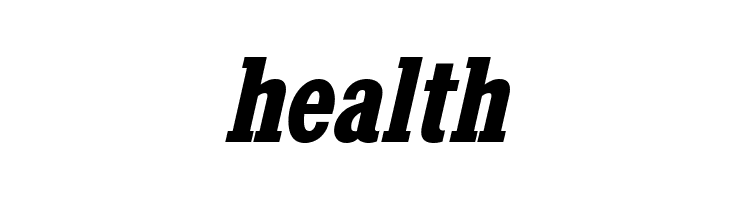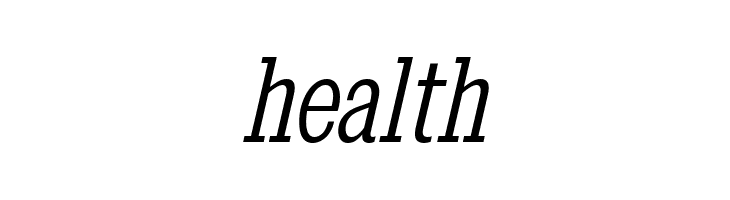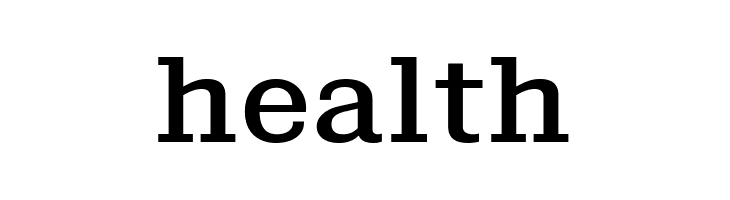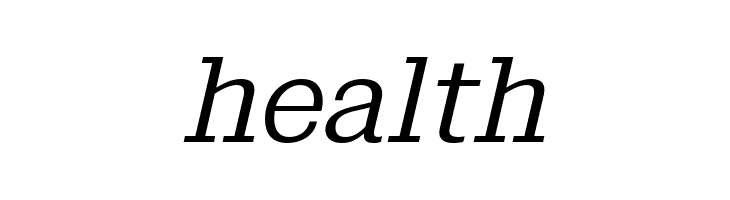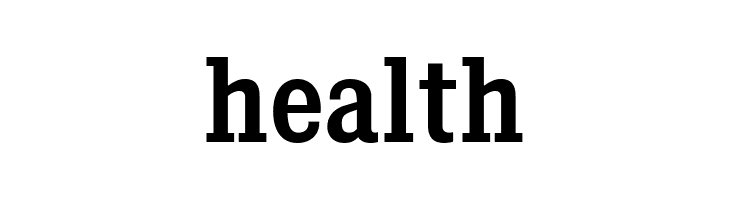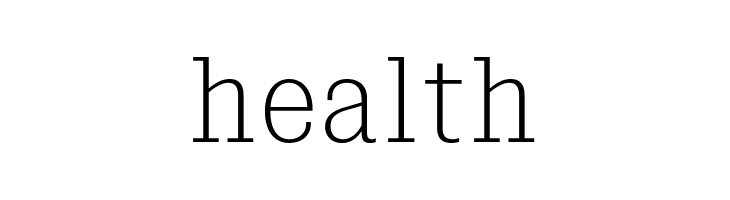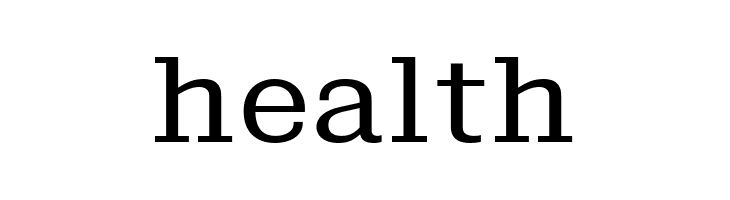
A bold, italic serif font with strong strokes and a dynamic slant.
A bold slab serif font with strong, well-defined characters.
An elegant italic serif font with moderate contrast and refined style.
A classic serif font with bold strokes and a traditional aesthetic.
A modern serif typeface with bold strokes and slightly condensed letterforms.
An elegant serif italic font with moderate contrast and refined details.
A classic serif font with an elegant italic slant and moderate stroke contrast.
A bold slab serif font with strong, well-defined characters.
A classic serif font with modern elegance and balanced proportions.
A classic serif font with modern elements, offering readability and elegance.